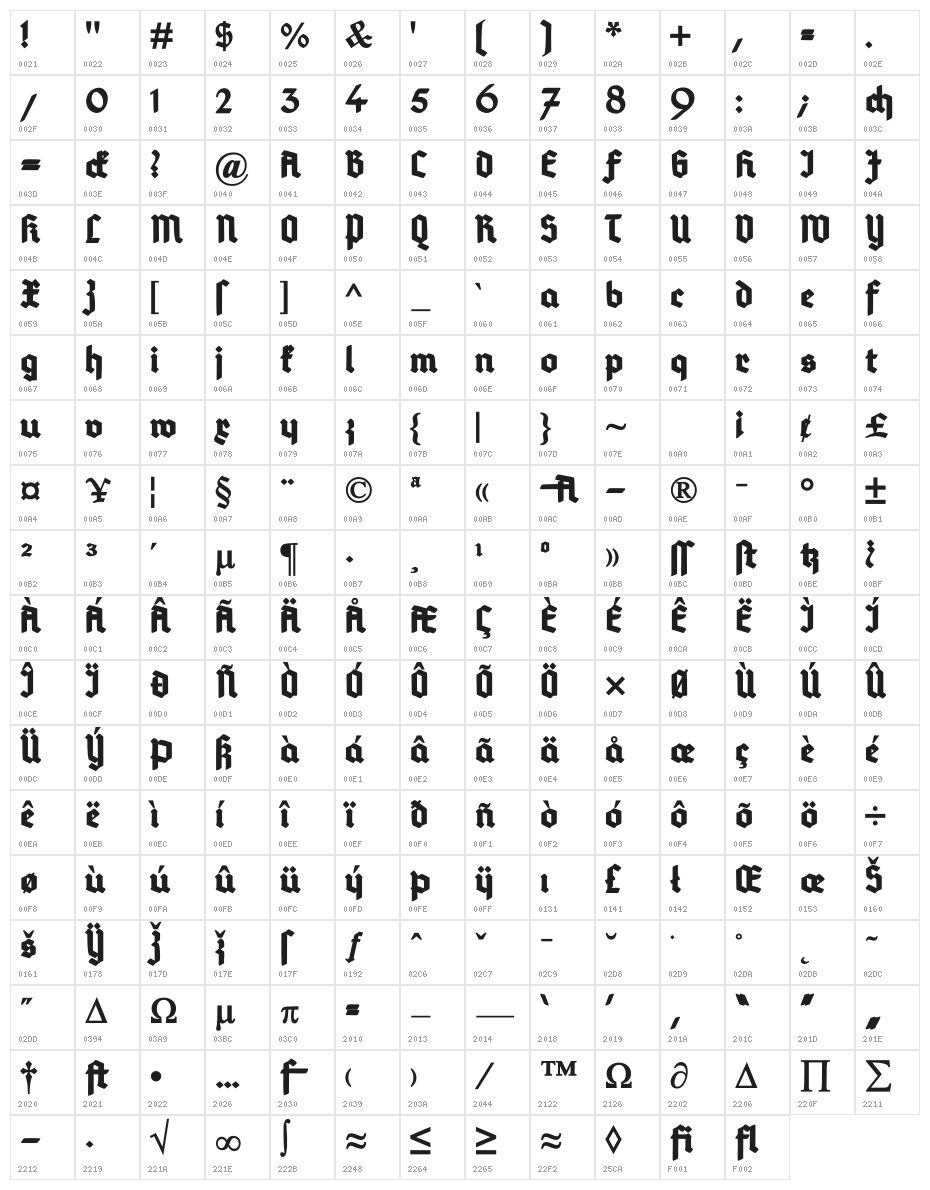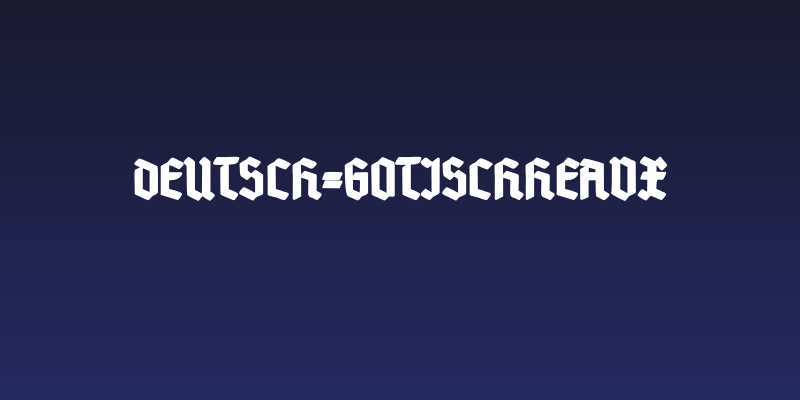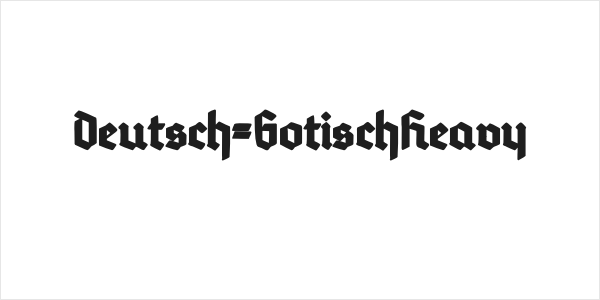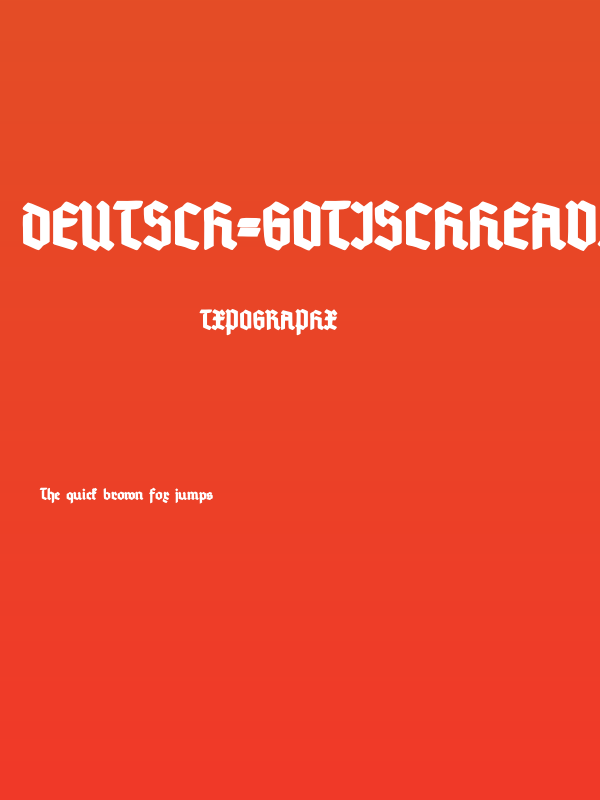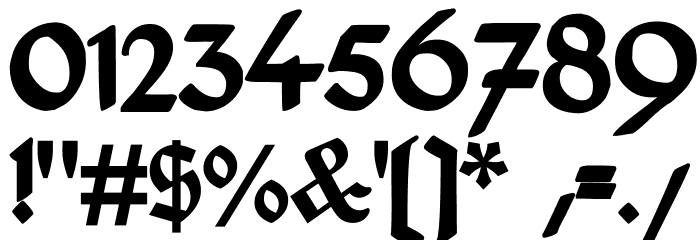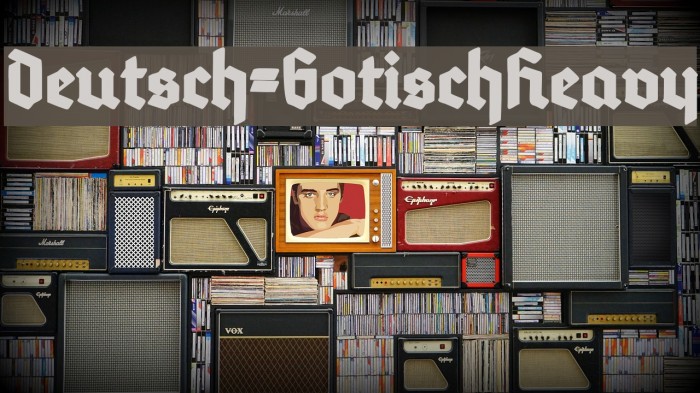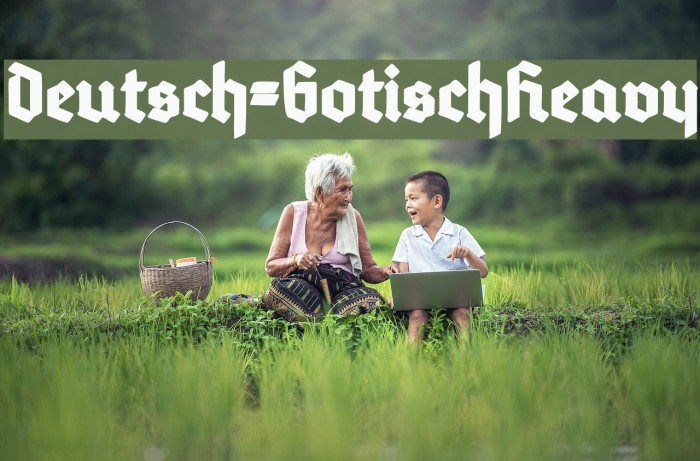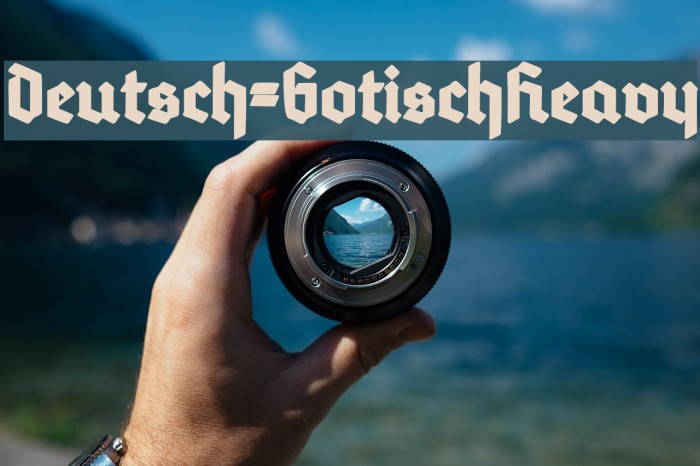
Deutsch-GotischHeavy Font
Deutsch-GotischHeavy Description
This font features a bold and striking Gothic style, characterized by its sharp, angular lines and intricate detailing. The uppercase letters are tall and imposing, while the lowercase letters maintain a consistent style that complements the uppercase. The numbers and special characters are designed with the same attention to detail, ensuring a cohesive look across all elements. The font's heavy weight and dramatic presence make it ideal for projects that require a strong visual impact. Its historical and traditional aesthetic is reminiscent of medieval script, offering a sense of grandeur and formality.
| Overall Style | Vintage |
| Proposed Projects | Ideal for historical documents, themed event invitations, branding for vintage products, or any project requiring a dramatic and traditional aesthetic. |